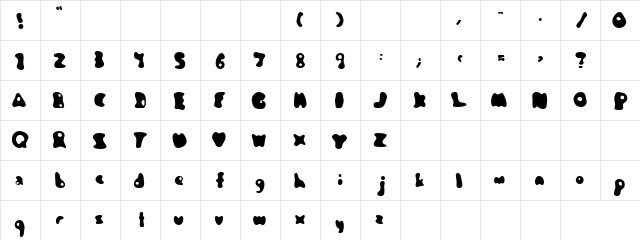
Flubb Regular
Design Context for Flubb Typeface
Flubb is a composed and adaptable typeface that performs quietly and consistently across a wide range of design contexts.